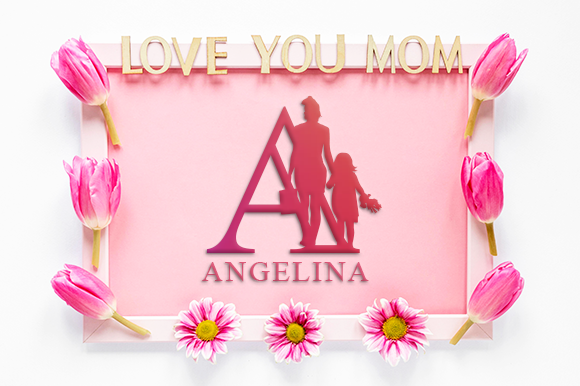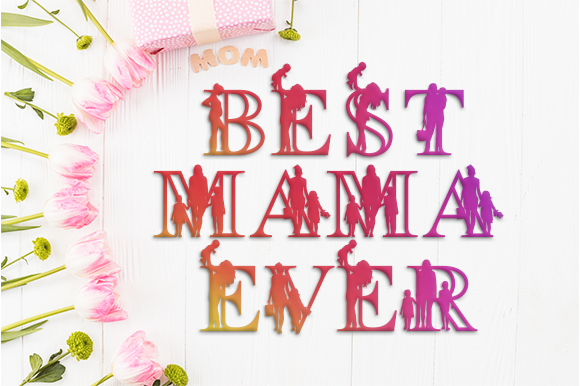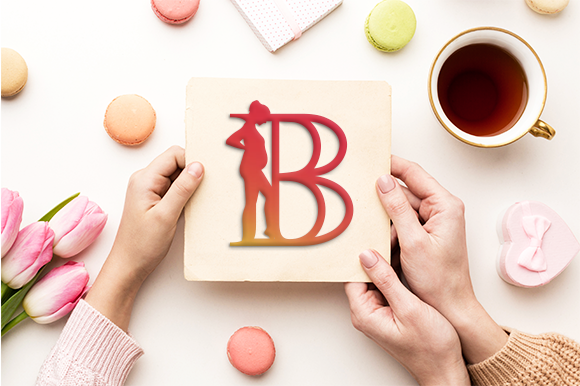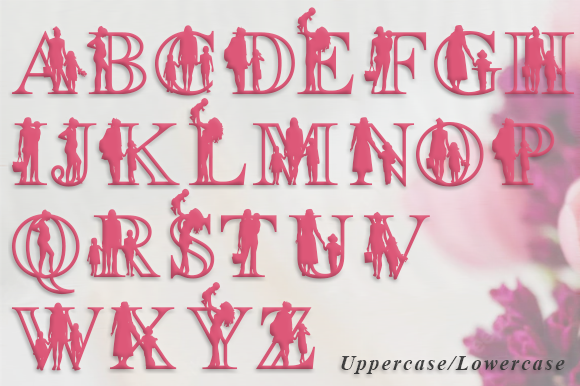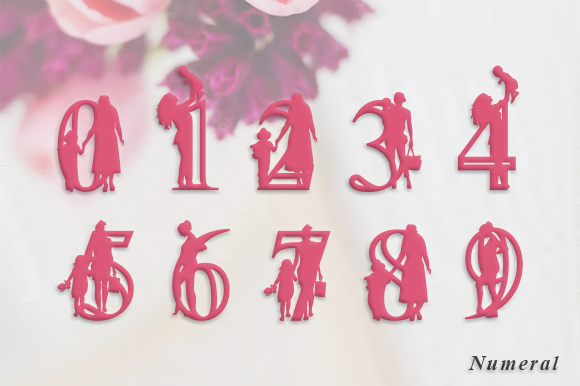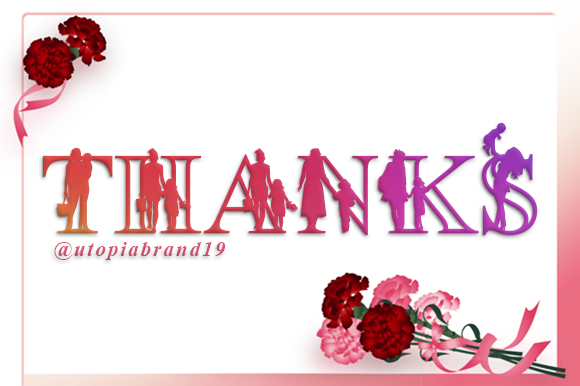
Introduction to Mum Monogram Font
Mum Monogram is a charming decorative font.
Fall in love with its authentic feel and use it to create gorgeous wedding invitations, beautiful stationary art, eye-catching social media posts, and cute greeting cards .